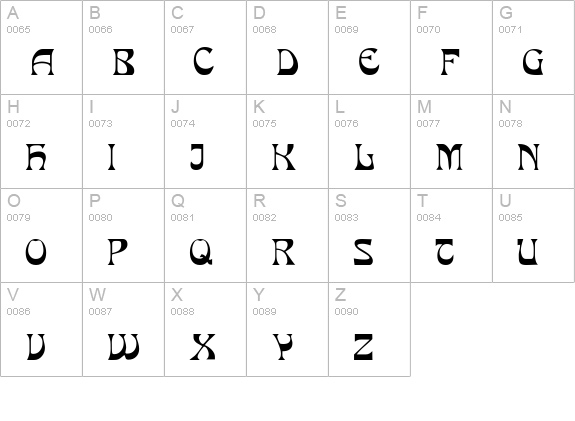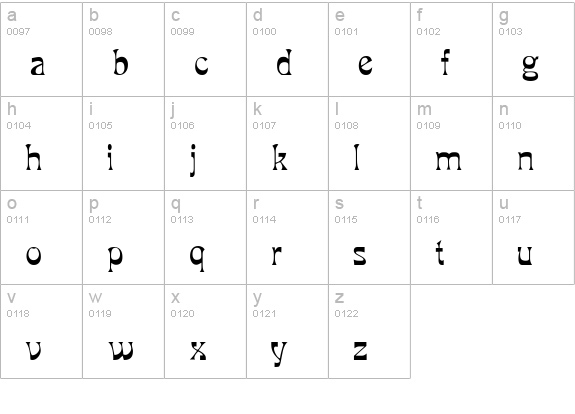
Grouse Font Details
Grouse font is a versatile and elegant typeface that exudes sophistication and modernity. Its sleek lines and stylish curves make it perfect for a wide range of design projects, from branding to editorial design. The Grouse font is a contemporary serif font that strikes the perfect balance between classic and modern aesthetics. What's even better is that Grouse font is available for free download at FontsMarket.com. This means you can elevate your designs with this stunning typeface without any cost. Whether you're working on a professional project or simply looking to add a touch of elegance to your personal creations, Grouse font is the perfect choice. Download it today and see the difference it can make in your designs.